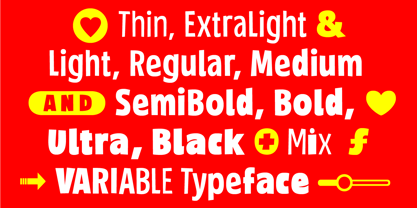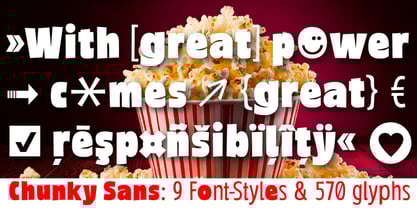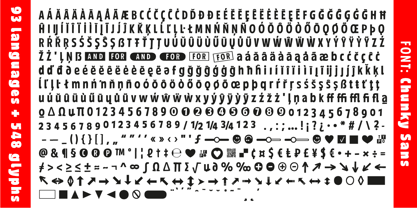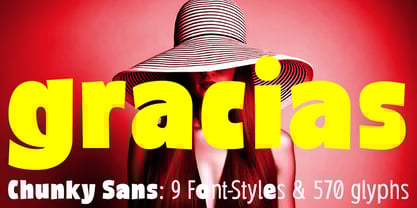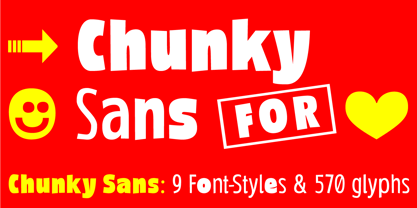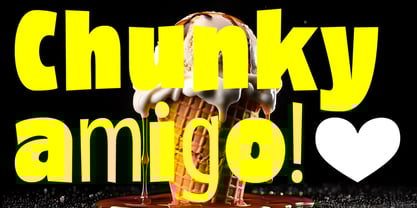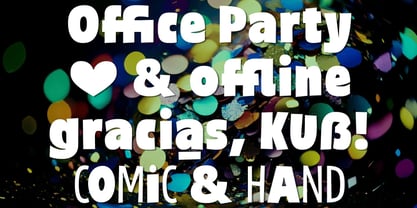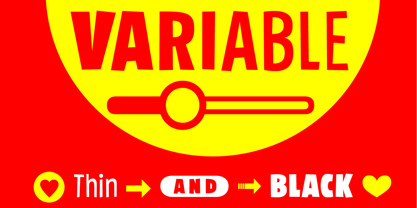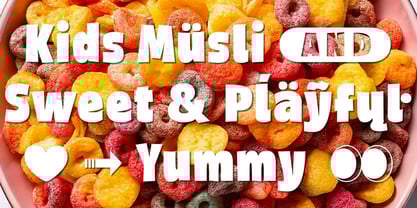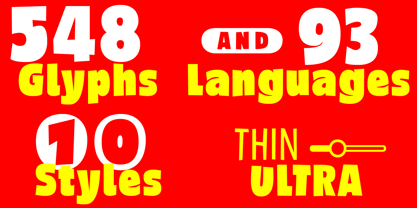
Chunky Sans Variable
by TypoGraphicDesign
The Chunky Sans Variable Font Family was designed by Manuel Viergutz and published by TypoGraphicDesign. Chunky Sans Variable contains 1 styles.
The variable typeface Chunky Sans is designed from 2024–2025 for the font foundry Typo Graphic Design by the type designer Manuel Viergutz.
10 font-styles (Thin, Extra Light, Light, Regular, Medium, SemiBold, Bold, Ultra, Black & Mix) with 548 glyphs (Adobe Latin 3) for 93 languages incl. decorative extras like icons, arrows, catch words, dingbats, emojis, symbols, geometric shapes (type the word #LOVE for ❤ as OpenType-Feature dlig) and stylistic alternates (2 stylistic sets).
For use in logos, packaging for drinks & food, magazines, posters, advertisement plus as webfont for decorative headlines. The font works best for display size.
Font Name: Chunky Sans
Font Styles: 10 font-styles (Thin, Extra Light, Light, Regular, Medium, SemiBold, Bold, Ultra, Black & Mix)
Font Cate­gory: Variable Sans Serif for head­line size
Glyph Set: 548 glyphs (Adobe Latin 3 incl. decorative extras)
■ Specials: Capital Letter Sharp S (German Versal Eszett U+1E9E) ẞ, Catchwords like FOR, Emojis like Smiley ☺ ☻, Symbols like Heart ♥︎, arrows ➡︎, Geometric Shapes ▲ ⚫️ , Variable Font
■ Type Desi­gner: Manuel Viergutz